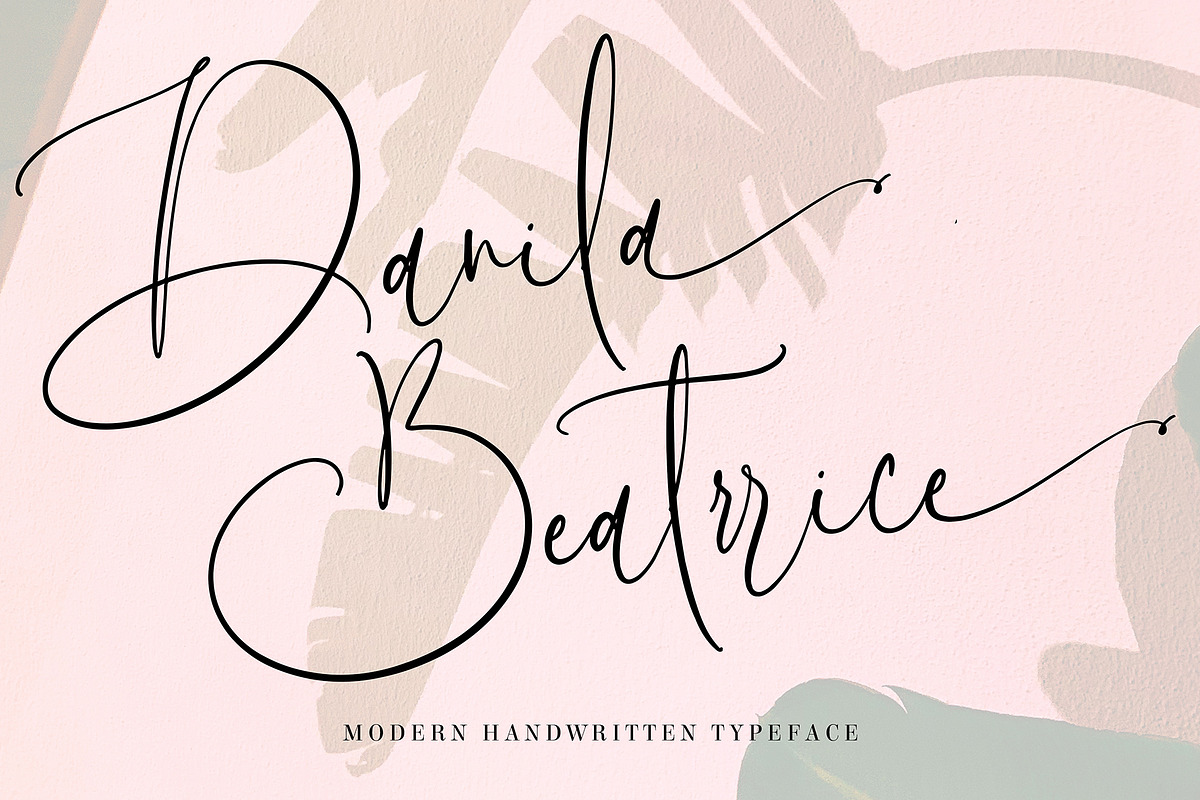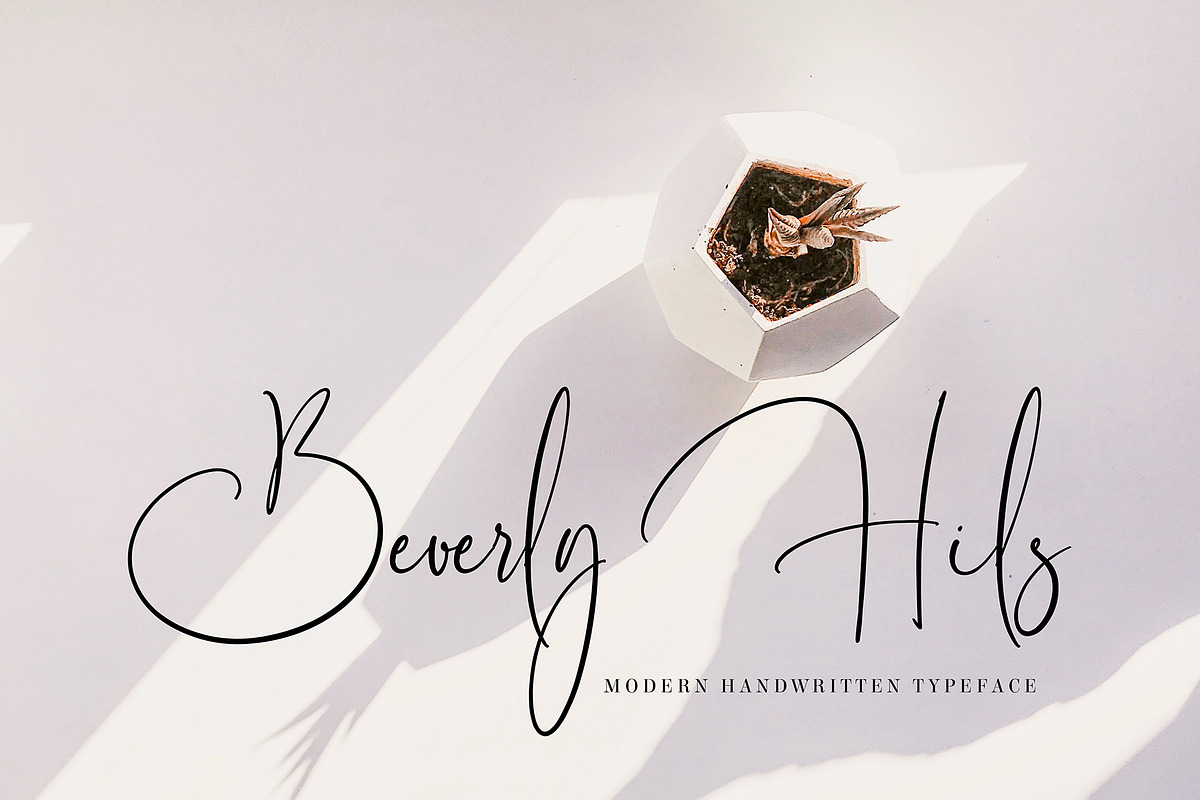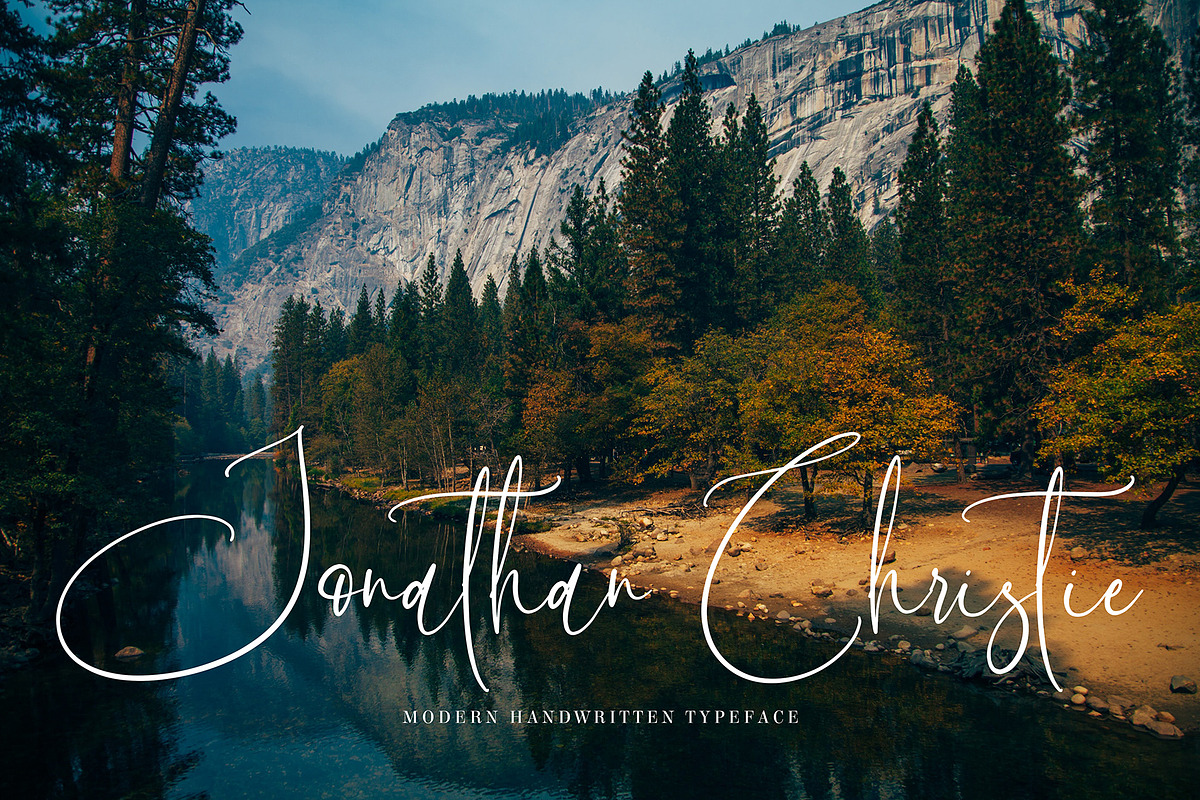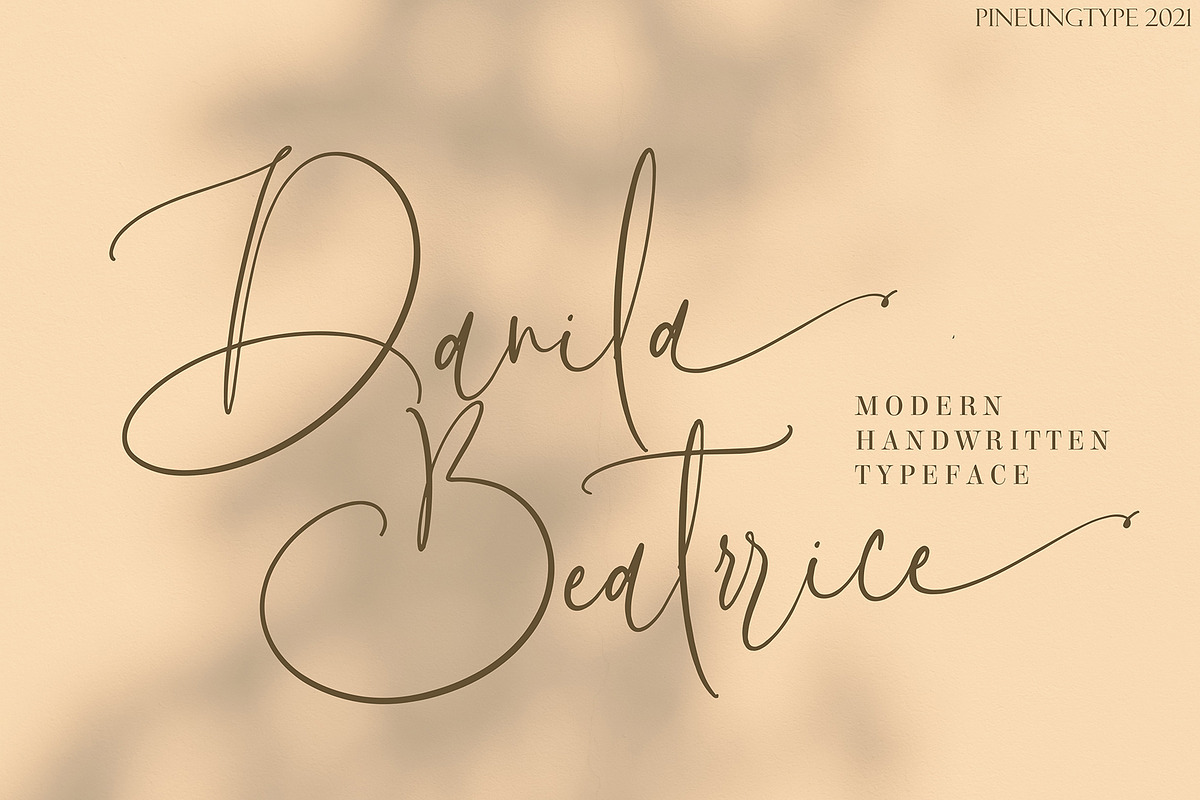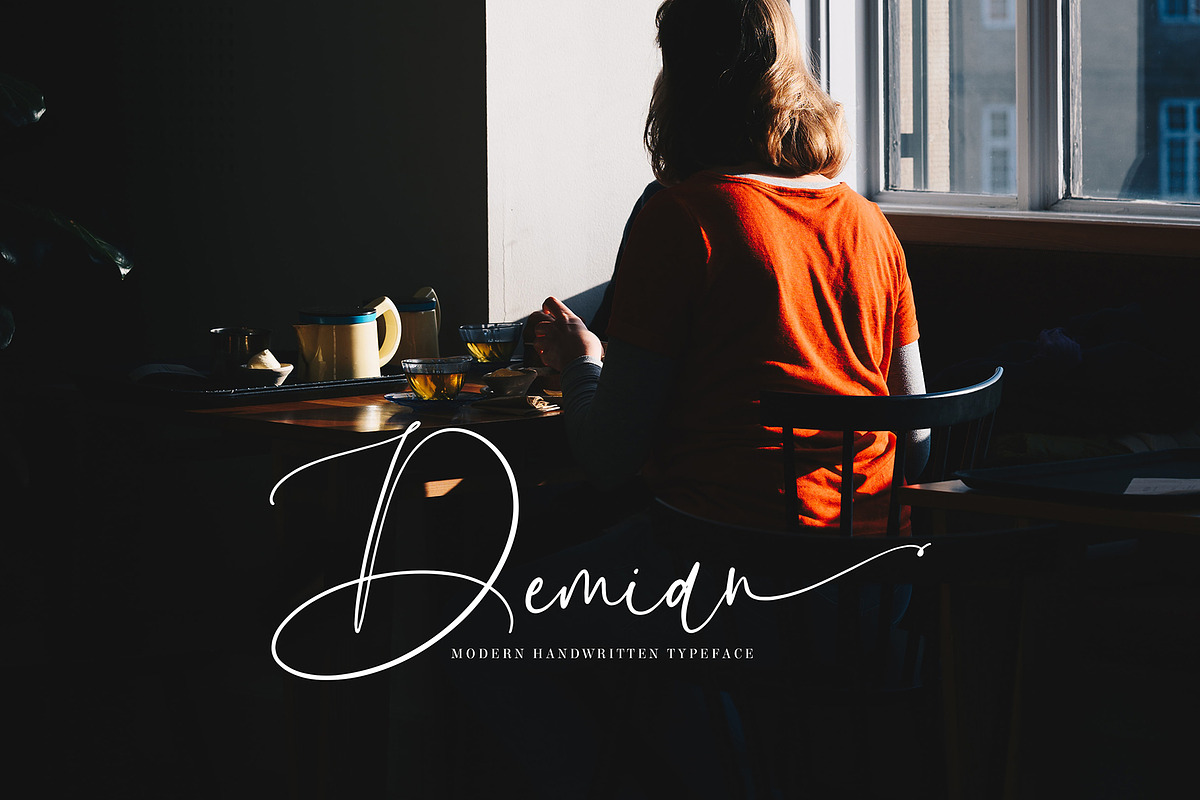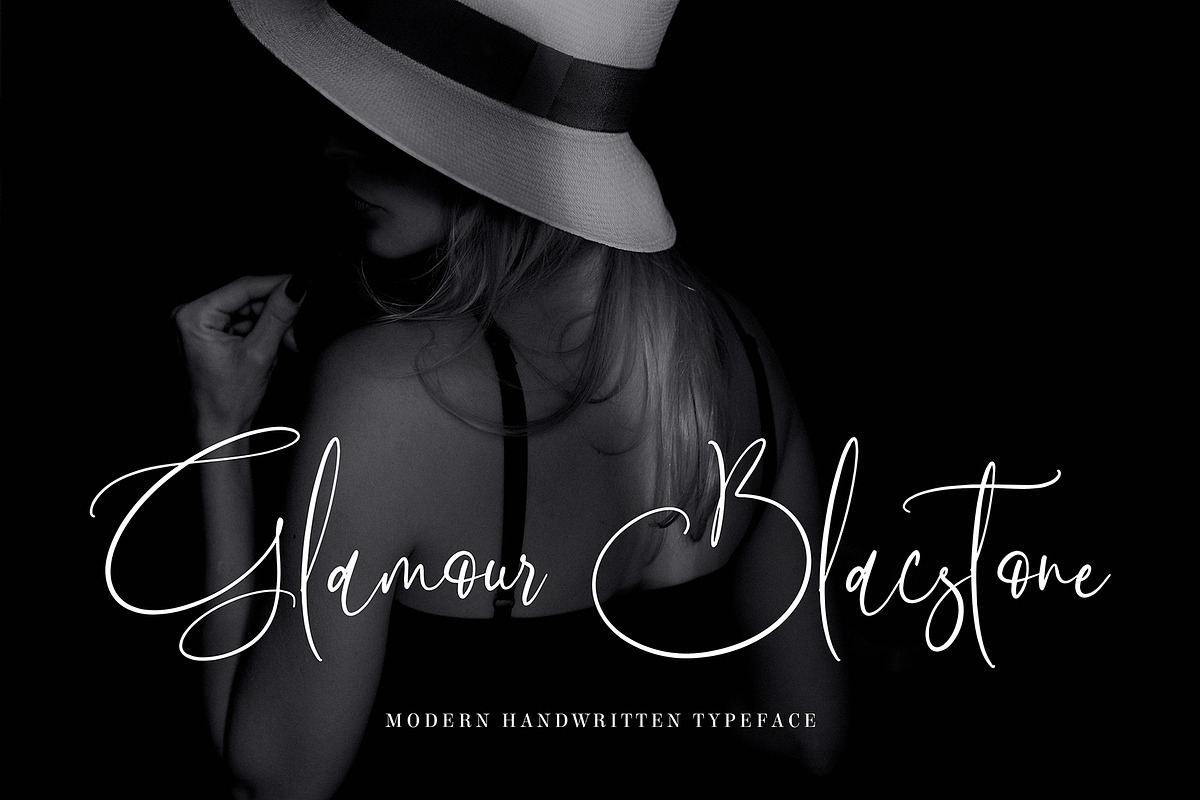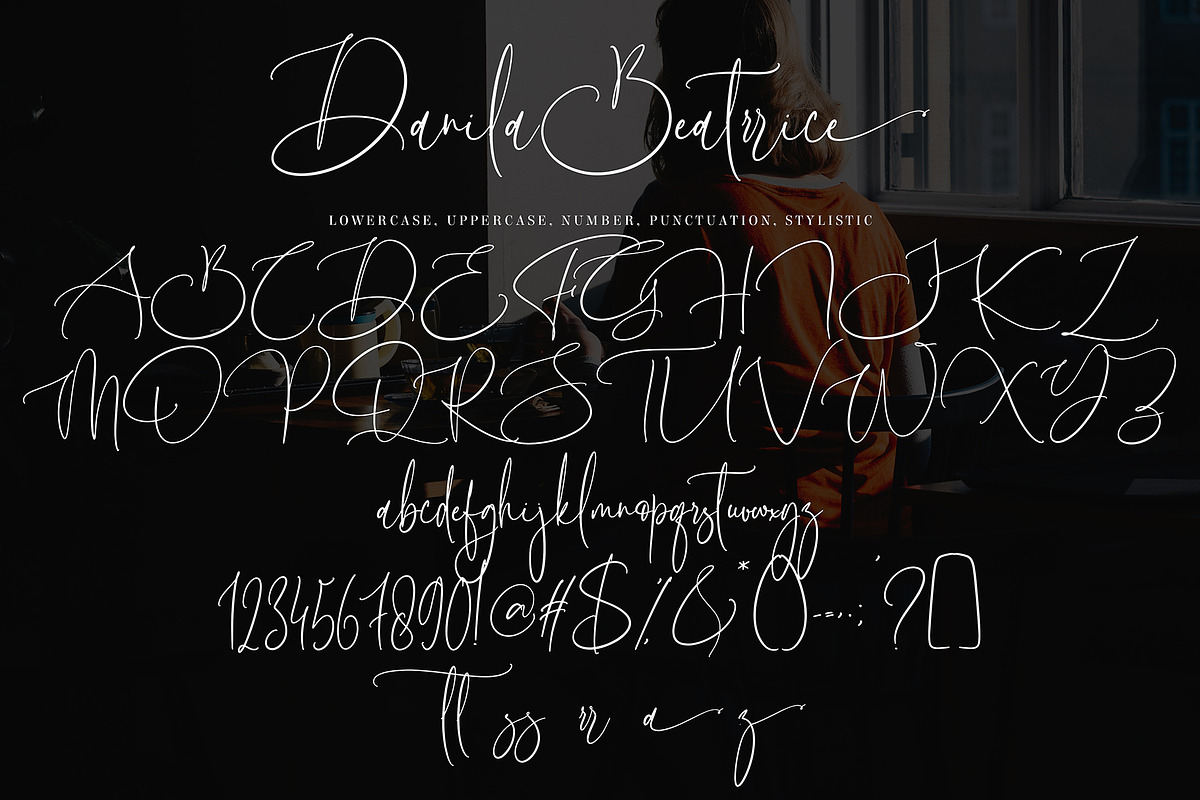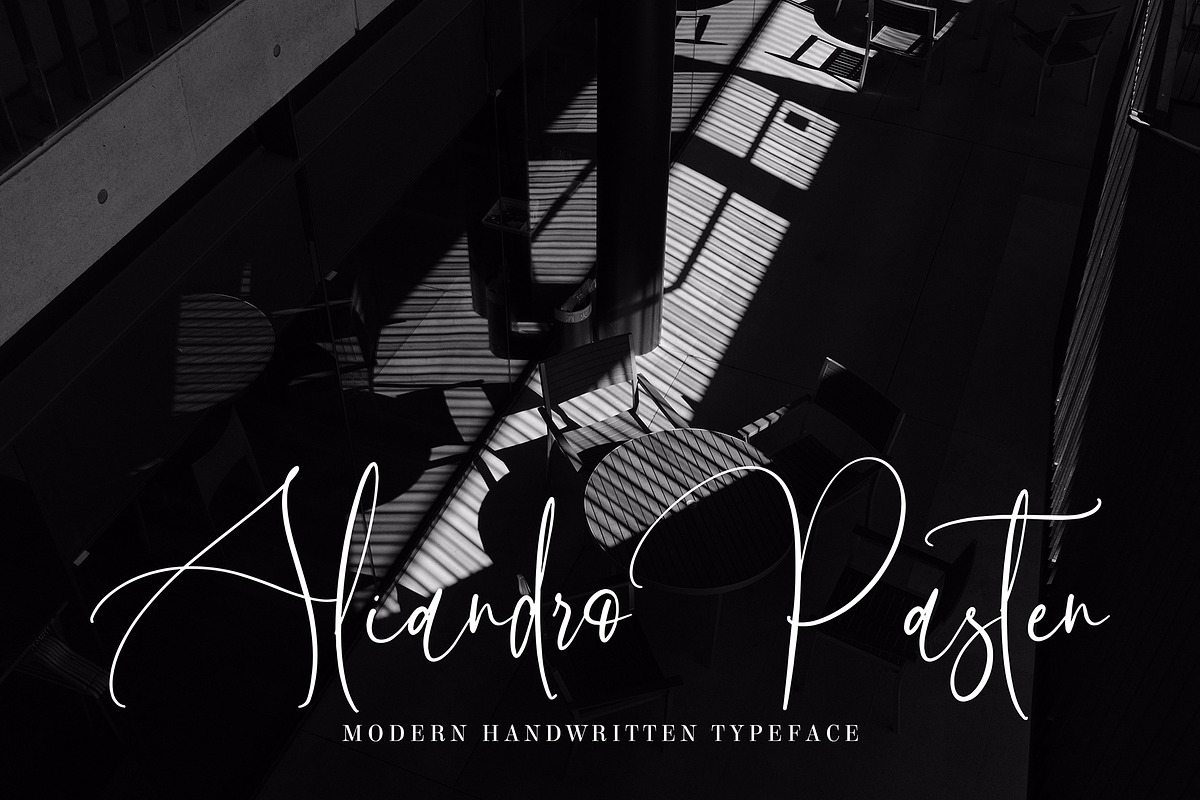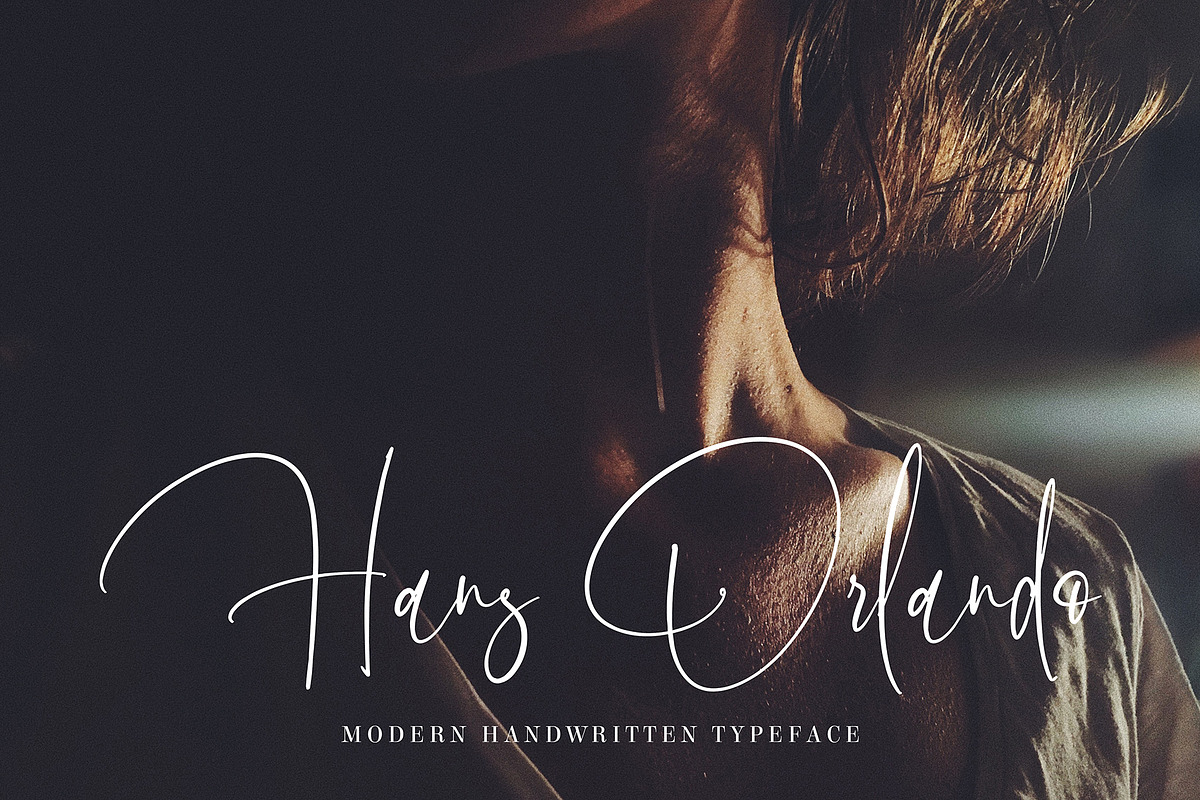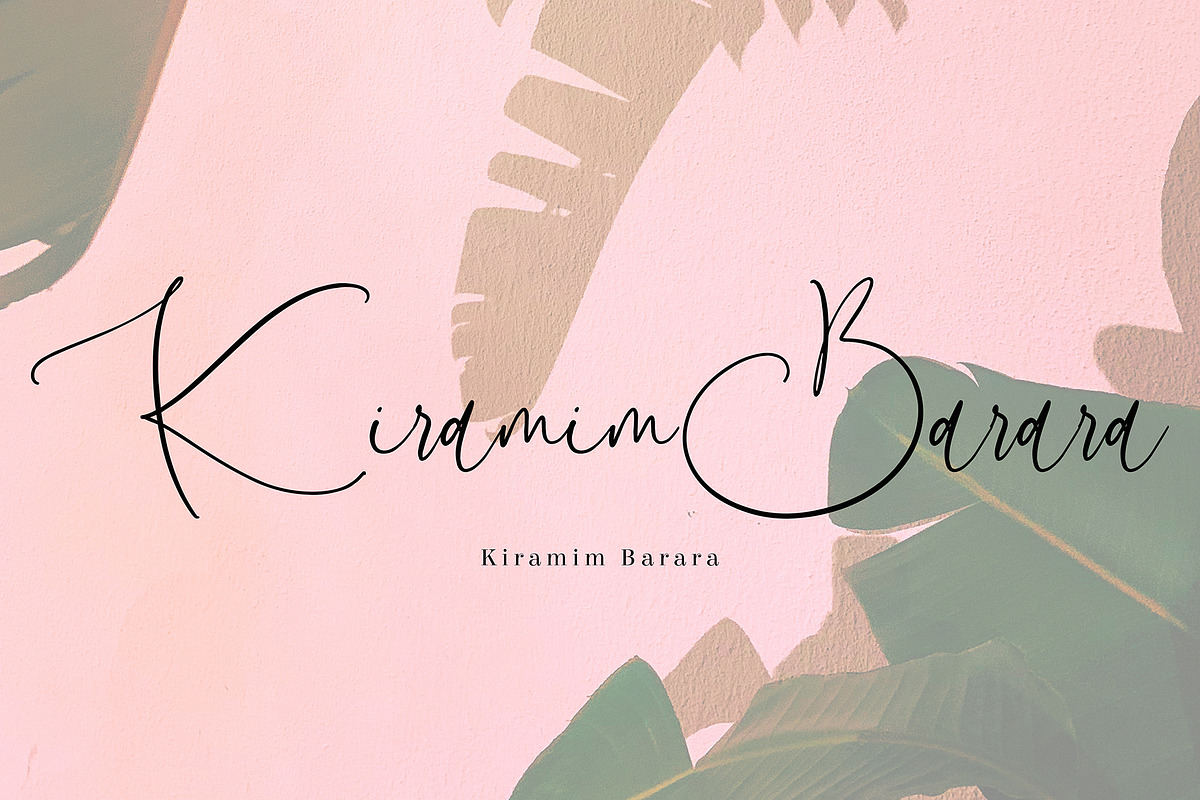
Danila Beatrrice
Danila Beatrrice font with new style, this font will perfect for many different project ex: quotes, logo, blog header, poster, banding, letter, invitation, stationery, etc...